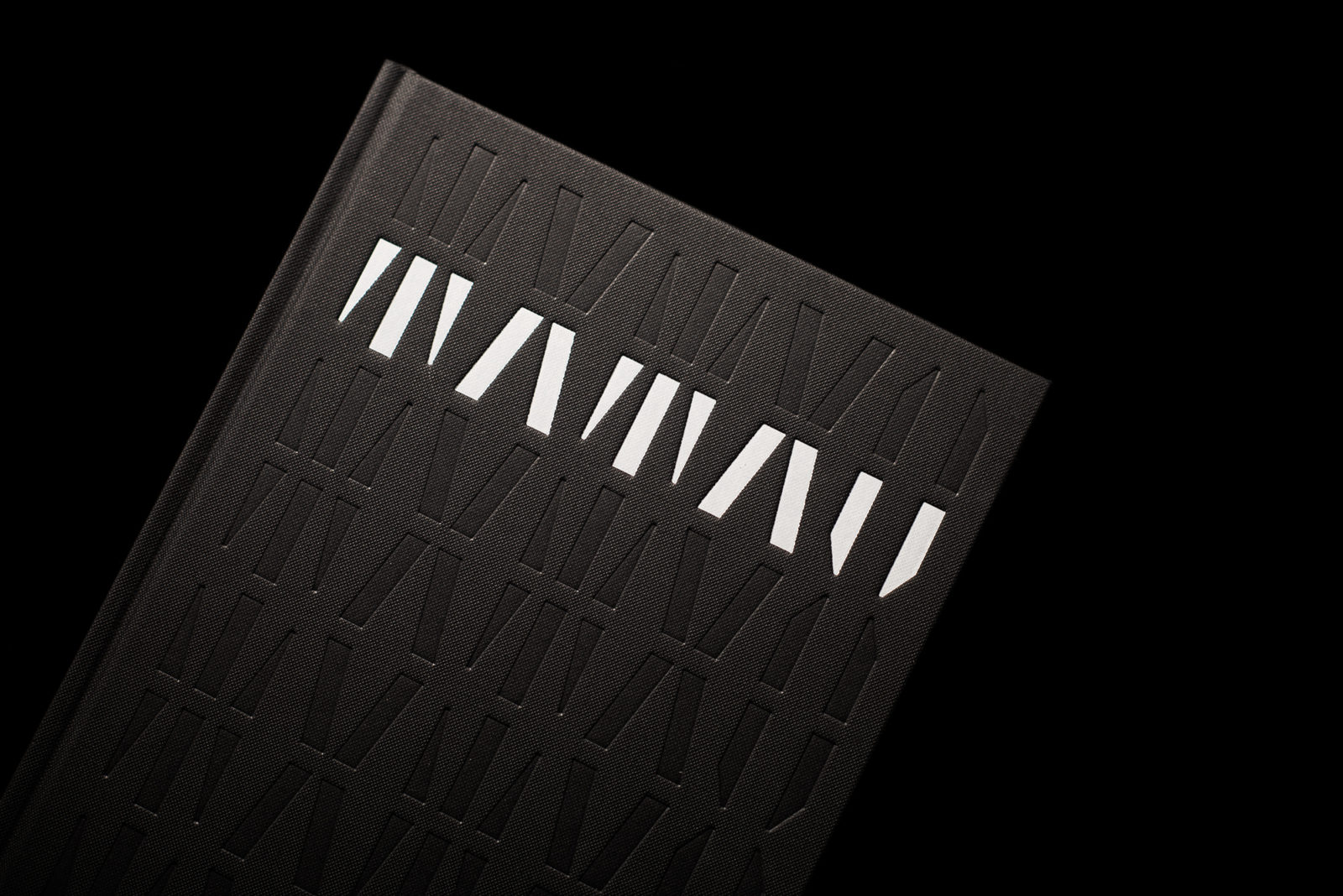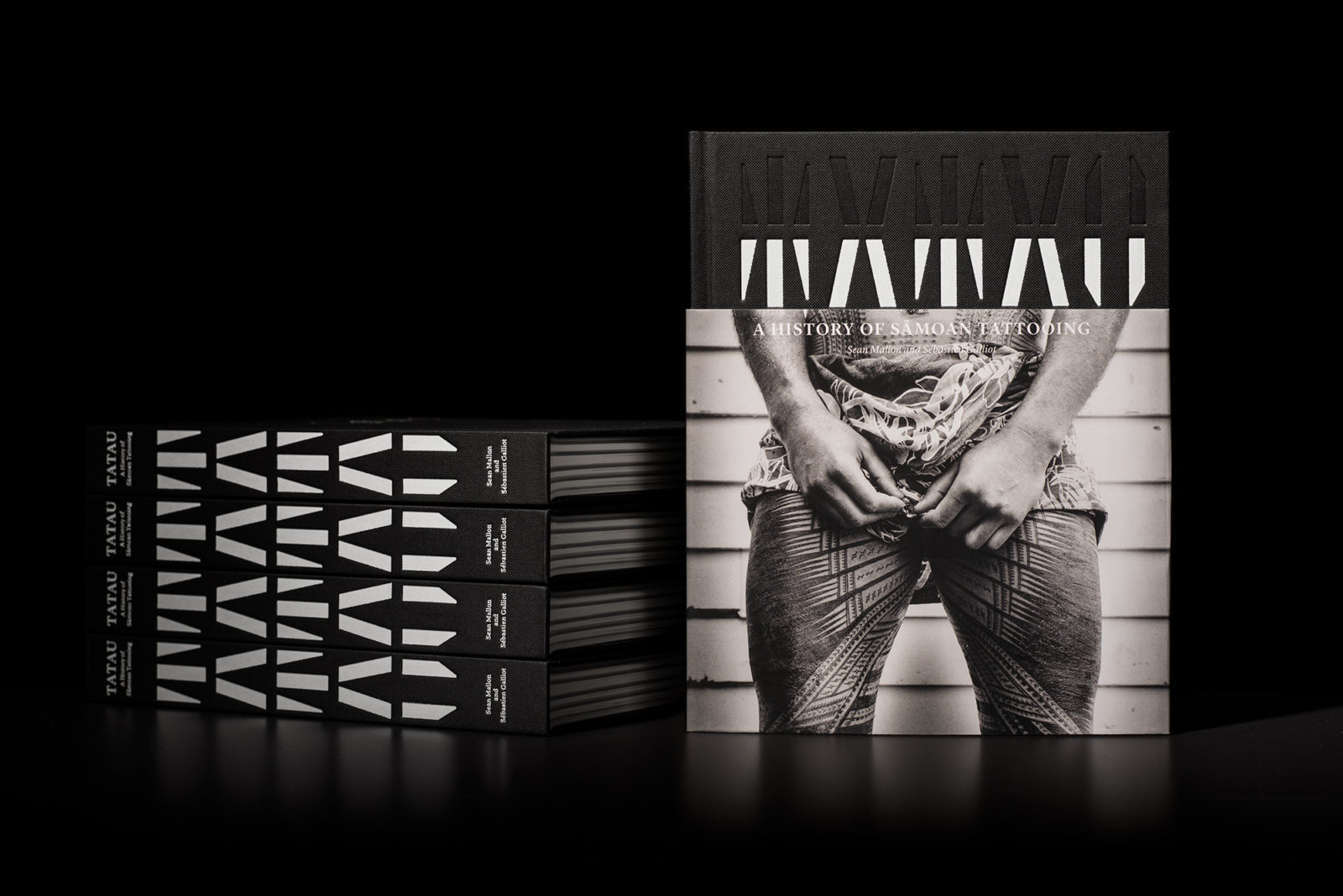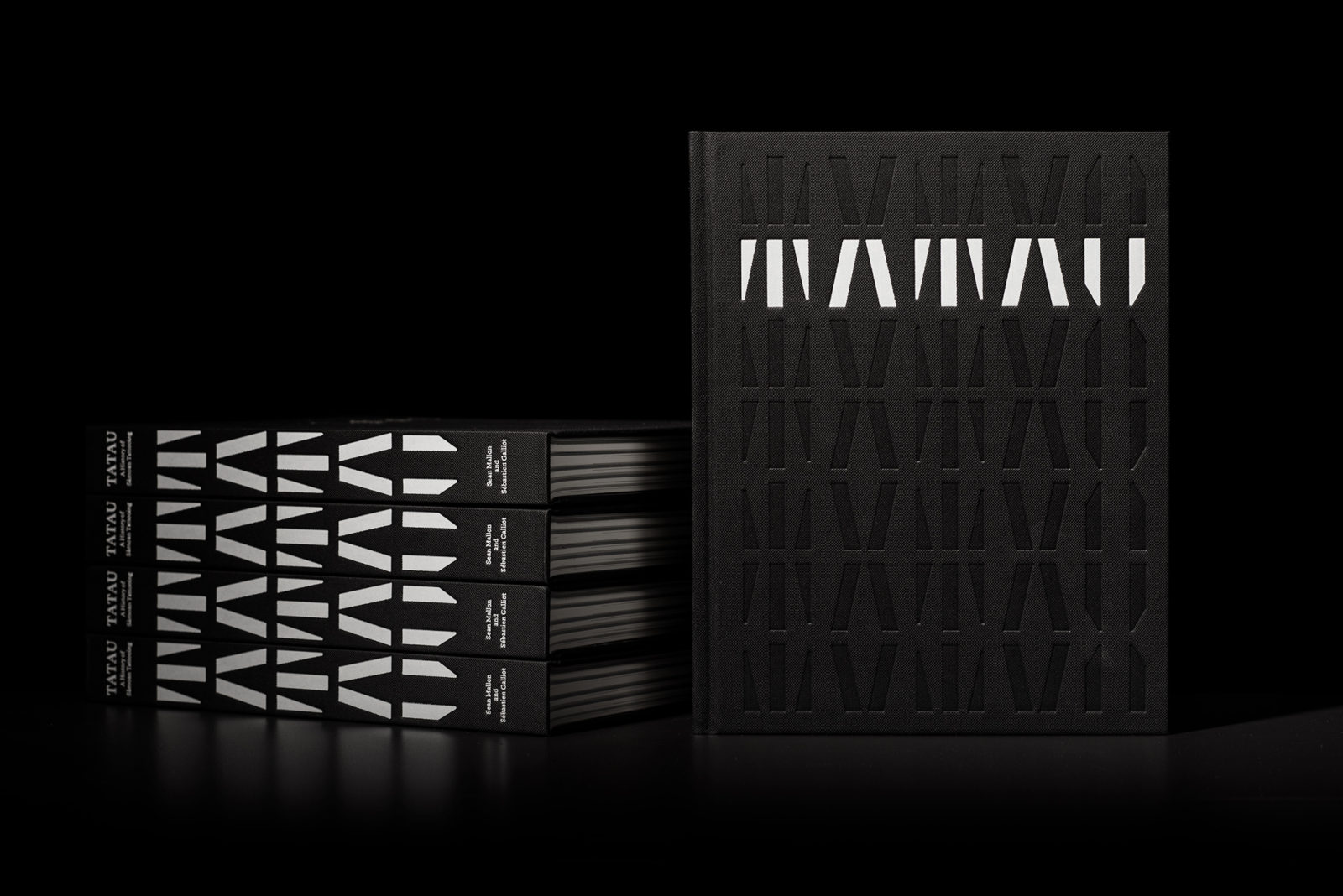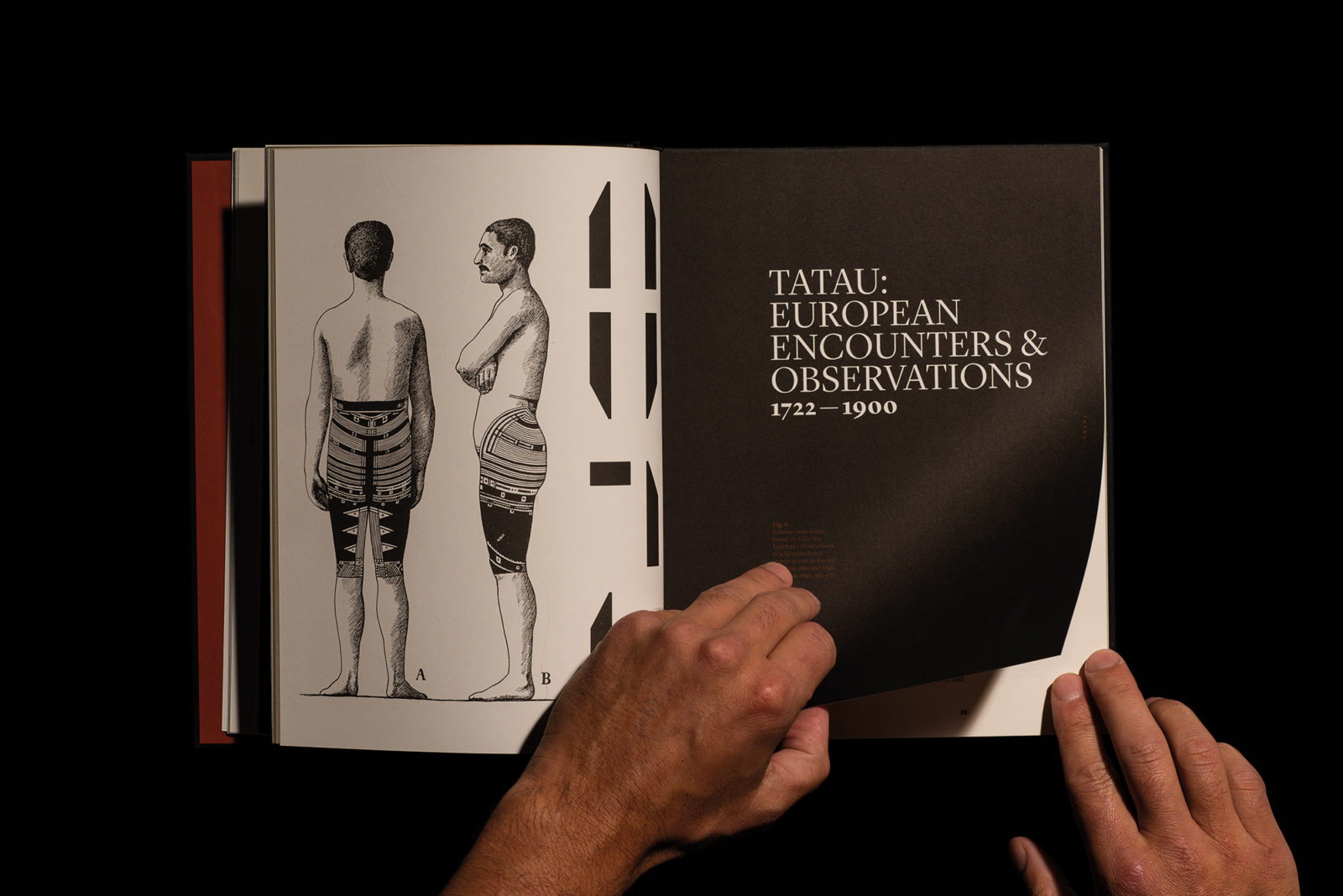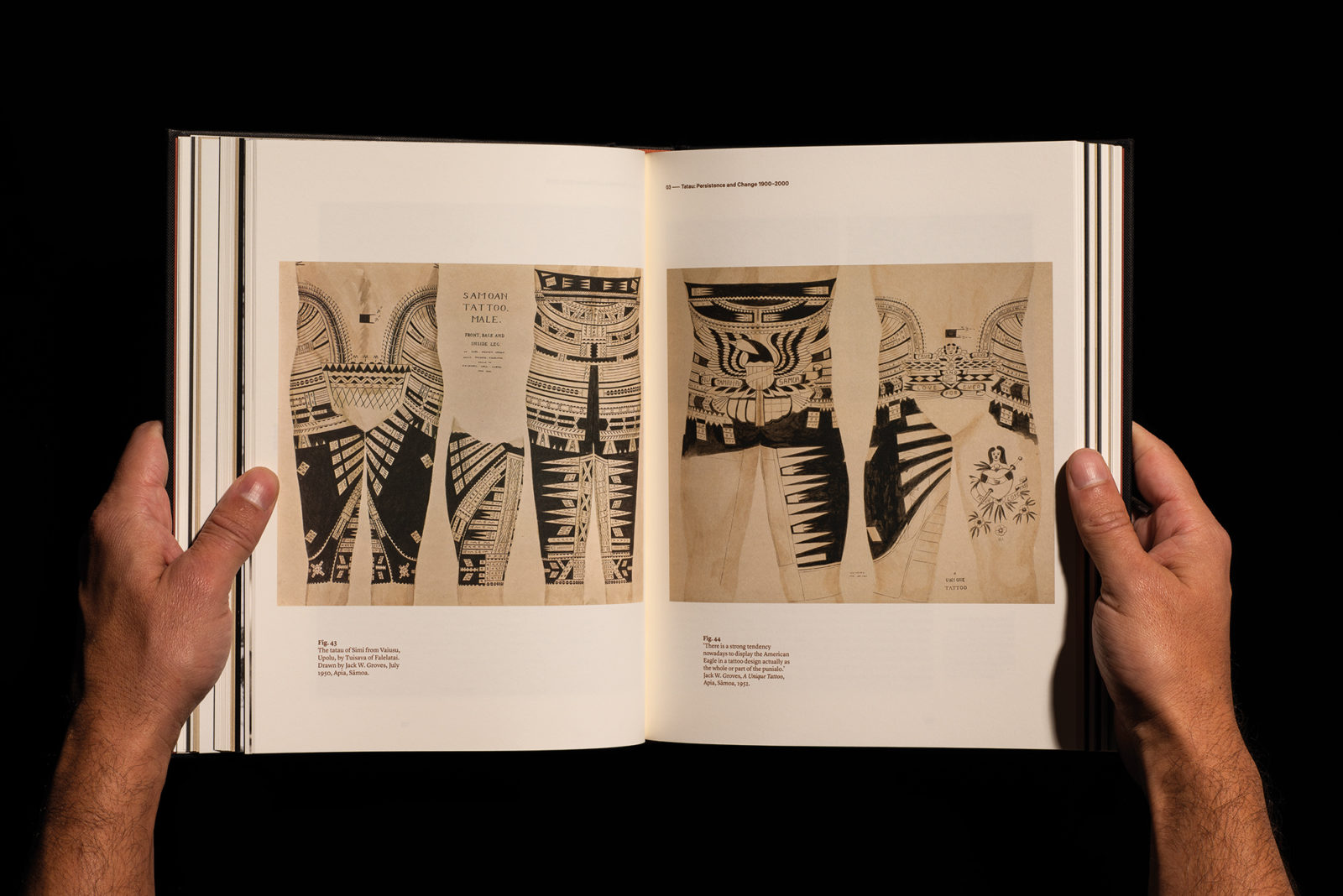
PANZ: Inhouse Design and Katie Kerr win big in this year's 2019 Book Design Awards
The Publishers Association of New Zealand (PANZ) has announced the winners of the 2019 Book Design Awards and the winner is heavily tattoed with a lot of attention to details that speak of heritage and pride. “Tatau: A History of Sāmoan Tattooing (Sean Mallon & Sébastien Galliot, Te Papa Press)”, designed by Arch MacDonnell, was awarded in the categories of best illustrated book and best typography, as well as taking out the Gerard Reid award for best overall book design and the people’s choice award.
The impressive 320pp hardback book retells the unique and powerful history of Sāmoan tattooing, from 3,000 years ago to modern practices. Richly illustrated with historical images of nineteenth and twentieth century Sāmoan tattooing, contemporary tattooing, diagrams of tattoo designs and motifs, and with supplementary photographs such as posters, ephemera, film stills and artefacts the eye-catching publication was highly praised by the judges for its “detailed and attentive design, high production values and sensitivity to the subject matter.”
“Design and craft were evident across all the titles, from the biggest and boldest to the most subtle treatment of typographic setting. Books brimming with great content and ideas presented each designer with a unique set of challenges. In the end the range of challenges and the way they were met by the designers across every aspect of the design led us to unanimous agreement” noted judging convener David Coventon on the high quality of this year’s finalists.
“While from a cultural history perspective the text is significant, it is also a significant piece of design,” writes Lana Lopesi in the introduction to her interview with the book's designer, Arch MacDonnell, creative director at the Auckland based consultancy Inhouse Design. “We wanted to give the book a strong sense of identity so we explored the idea that lettering somehow based on tatau could be developed to create a unique wordmark. The result is a wordmark and numeral set that draws on the shark tooth motif prevalent in Samoan tatau. We love how the stencil nature of the forms means it can be read as both pattern and letters at the same time” he notes of the multi-awarded design-forward book.
“Custom type is thoughtful and visually striking, yet it is the dialogue created between this and the half cover that really stands out. The imagery shot by Greg Semu introduces a clear anthropological component to the graphic language of the cover. And in these images, completes the picture. It goes further. In its reversible black and white cover of male and female models with very different tattoos the half cover touch upon identity, and in the bisection of the graphic book cover, serves as a metaphor for covering up, the hidden, divisional and socio-cultural provocations of tattooing” writes Richard Baird in his review of Tatau.
“The impression and imposition of ink on skin is pleasantly materialised as black and white foils debossed onto the surface of the book cover. This balance of striking form and tactility serves to catch the eye and deliver detail up close, but in a way that is rooted in the theme. The custom stencil typeface finds a smart synergy with the content but with enough difference to stand out from, frame and sequence content. Interior pages, their layouts, colour, dialogue between image and text furthers the implication of chronology, the passage of time, the reshaping of tattooing as the practice crosses cultural boundaries and geographical thresholds. Layouts and colour bring a visual credibility, particularly in the approach to referencing; the formality of an academic text, but with the large images of an art book. This balance of aesthetic pleasure and contextual richness within the framework of archival is satisfying. The strong graphic impression and design craft of cover, and the approach to the design of interior pages appear as an effective distillation and augmentation of this relationship between image and text, the anthropological and the aesthetic, individual expression and collective identity” he adds.
“We love how the stencil nature of the forms means it can be read as both pattern and letters at the same time”
Another big winner in this year's PANZ Awards is Katie Kerr who is named Allen & Unwin Young Designer of the Year 2019. A graphic designer based in Tāmaki Makaurau Kerr's practice focusses on the creation of books, publications and printed materials in the broad field of the contemporary cultural sector. She is interested in text and language and the space between the romantic and the rational.
Previously Head of Design at Alain de Botton’s The School of Life in London, she returned to New Zealand to complete her Masters of Fine Art at Ilam School of Fine Arts. Now, alongside designing for local and international clients, she runs GLORIA, an experimental publishing platform, with photographer Alice Connew. This platform functions as a research facility to explore the multidisciplinary production of paperback books. She also has a hand in Strange Goods, a new art book store on Karangahape Road, and The Directory of Women Designers.
“Katie Kerr’s portfolio was consistently understated in its approach. She presented us with books small-in-scale but brave and experimental in both content and production value” noted the judges of her awarded work.
Katie Kerr's winning portfolio is comprised of the following publications: Big Ideas for Curious Minds: An Introduction to Philosophy by School of Life (Alain de Botton), Sportsman of the Year: A Suburban Philosophy by Jan Hellriegal, Make Every Day by Rebecca Commisaris, Bee Curious by Kantar & the School of Life, Dirt by Gemma Walsh & Katie Kerr.
“Katie Kerr’ presented us with books small-in-scale but brave and experimental in both content and production value”
Following are the winning titles in each category:
Best book: Tatau: A History of Sāmoan Tattooing (Sean Mallon & Sébastien Galliot, Te Papa Press), designed by Arch MacDonnell
Best illustrated book: Tatau: A History of Sāmoan Tattooing (Sean Mallon & Sébastien Galliot, Te Papa Press), designed by Arch MacDonnell
Best non-illustrated book: Women, Equality, Power (Helen Clark, A&U), designed by Kate Barraclough
Best children’s book: The Bomb (Sacha Cotter, illus by Josh Morgan, Huia Publishers), designed by Te Kani Price
Best educational book: Why is That Lake So Blue?: A children’s guide to New Zealand’s natural world (Simon Pollard, Te Papa Press), designed by Kate Barraclough
Best cookbook: Always Delicious: Favourite recipes from the New Zealand Listener (Lauraine Jacobs, Potton & Burton), designed by Floor van Lierop
Best typography: Tatau: A History of Sāmoan Tattooing (Sean Mallon & Sébastien Galliot, Te Papa Press), designed by Arch MacDonnell
Best cover: Wanted: The search for the modernist murals of E. Mervyn Taylor (ed by Bronwyn Holloway-Smith, Massey University Press), designed by Anna Brown
People’s choice award: Tatau: A History of Sāmoan Tattooing (Sean Mallon & Sébastien Galliot, Te Papa Press), designed by Arch MacDonnell
The PANZ Book Design Awards were established by the Publishers Association of New Zealand (PANZ) to promote excellence in, and provide recognition for, the best book design in New Zealand.